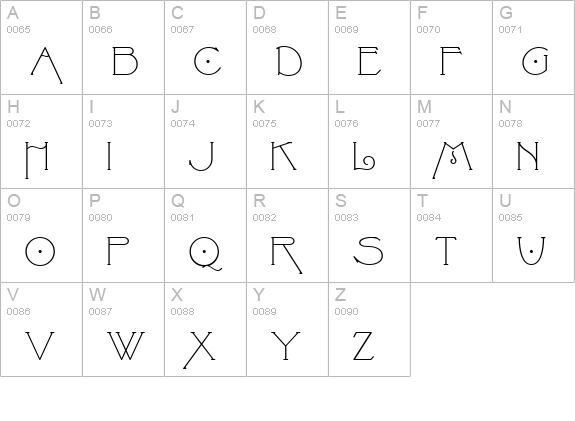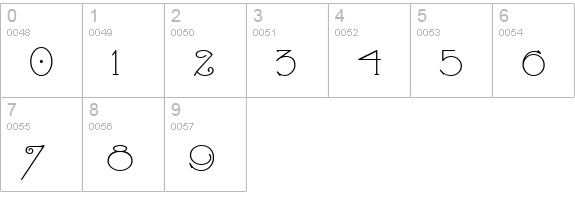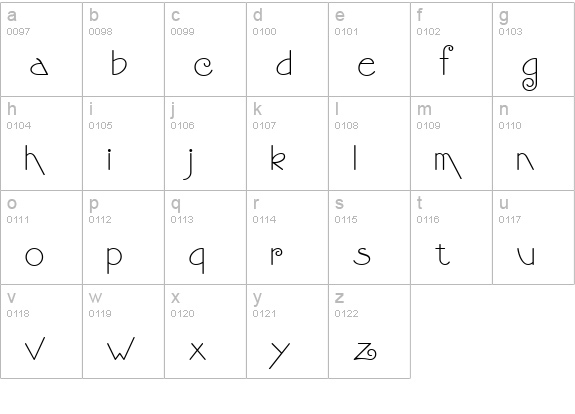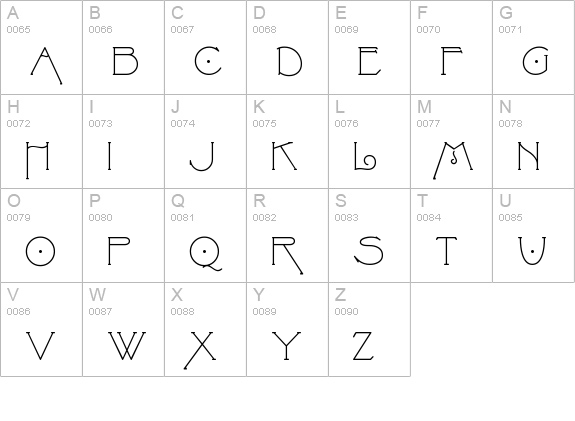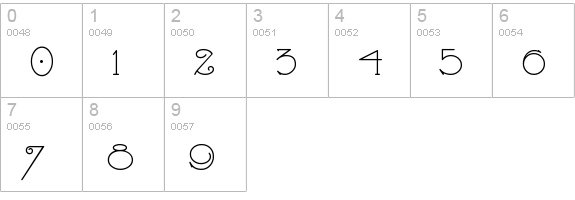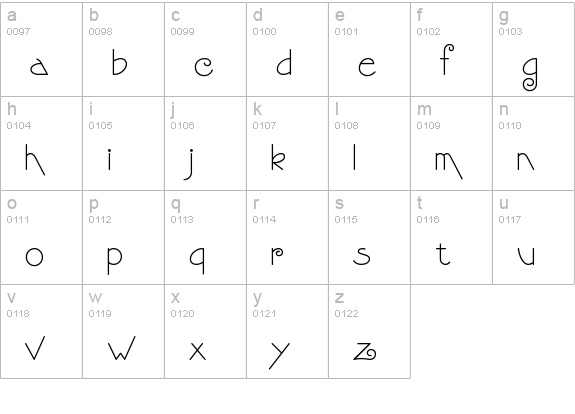
StrongsDraughtsman Light is a refined, elegant variant in the StrongsDraughtsman typeface family \xE2\x80\x94 well suited to elegant body text, refined sub-headings, and luxury branding.
StrongsDraughtsman Light is a modern and sleek font that is perfect for creating clean and professional designs. Its minimalist yet bold style makes it versatile for various projects, from branding to editorial design. The font features sharp lines and well-defined shapes that exude confidence and sophistication. The best part is that StrongsDraughtsman Light is available for free download at FontsMarket.com. This means you can easily access this high-quality font without any cost, making it a valuable addition to your font library. Whether you're a designer, a student, or a hobbyist, this font offers endless possibilities for your creative projects. Don't miss out on the opportunity to enhance your designs with the elegant and modern aesthetic of StrongsDraughtsman Light. Download it now and start creating stunning visuals that will leave a lasting impression.